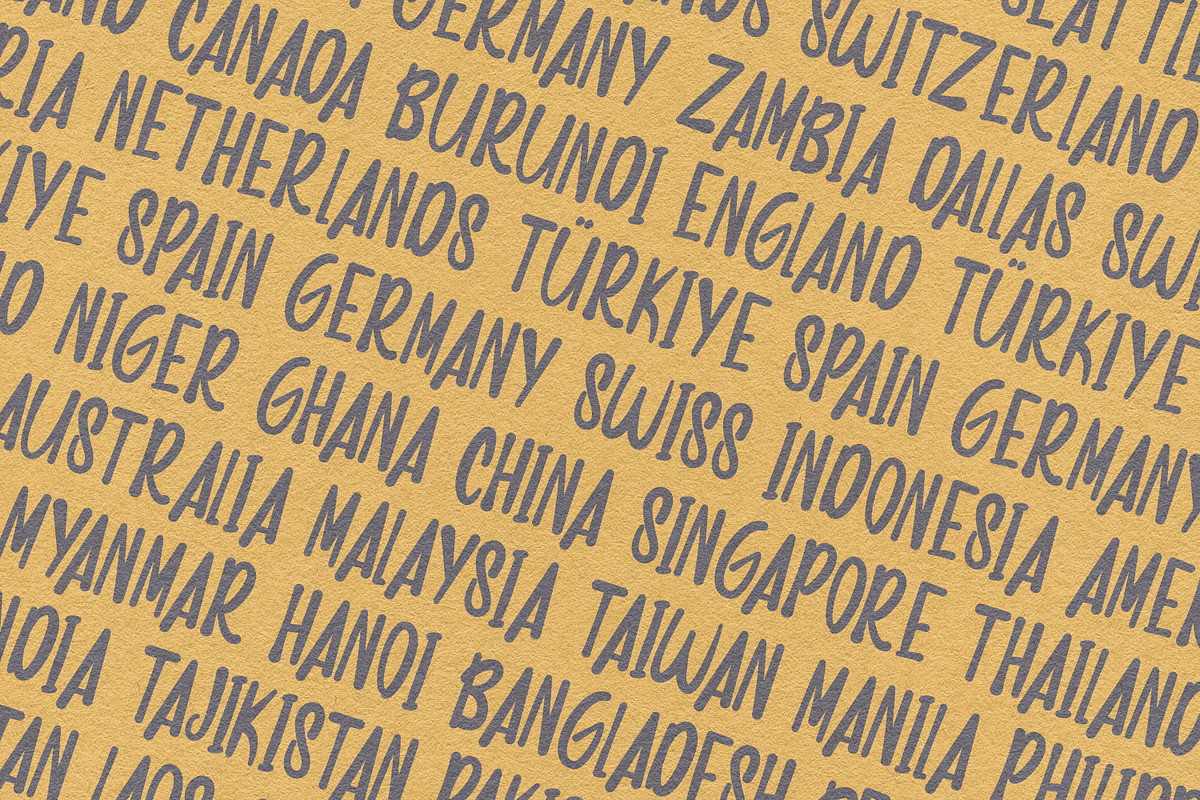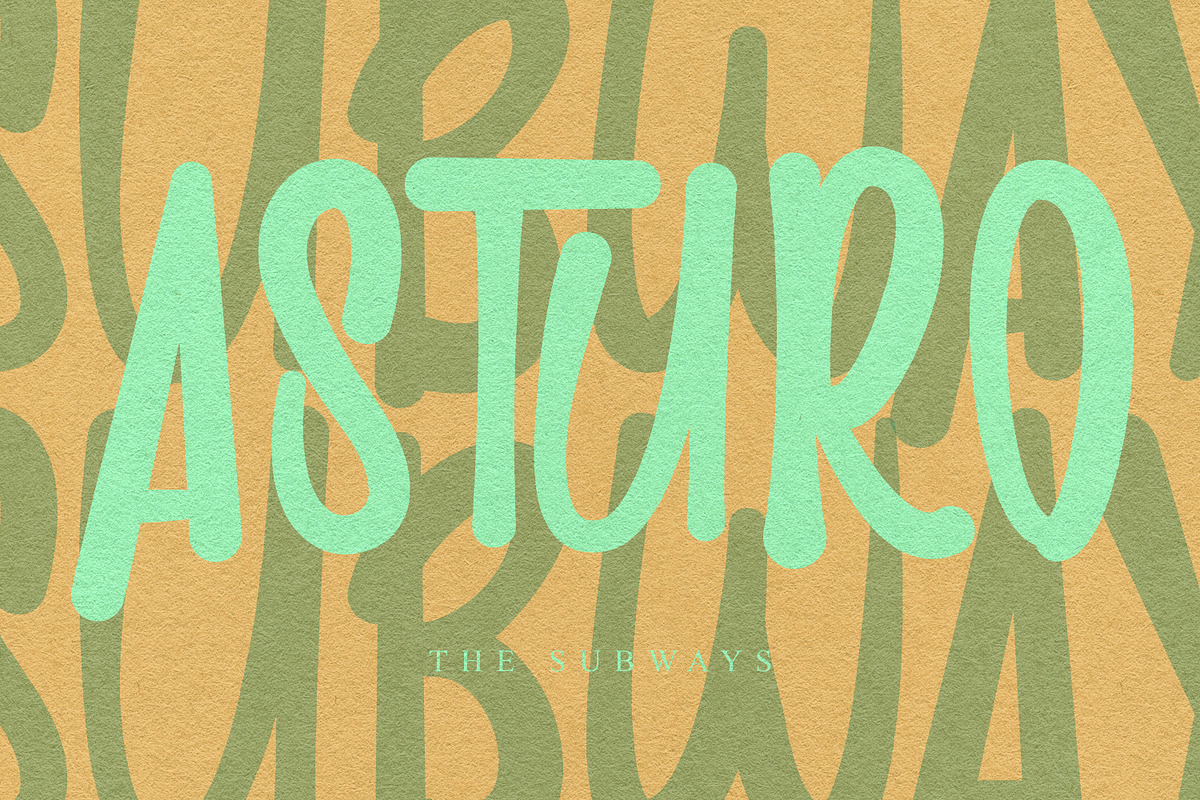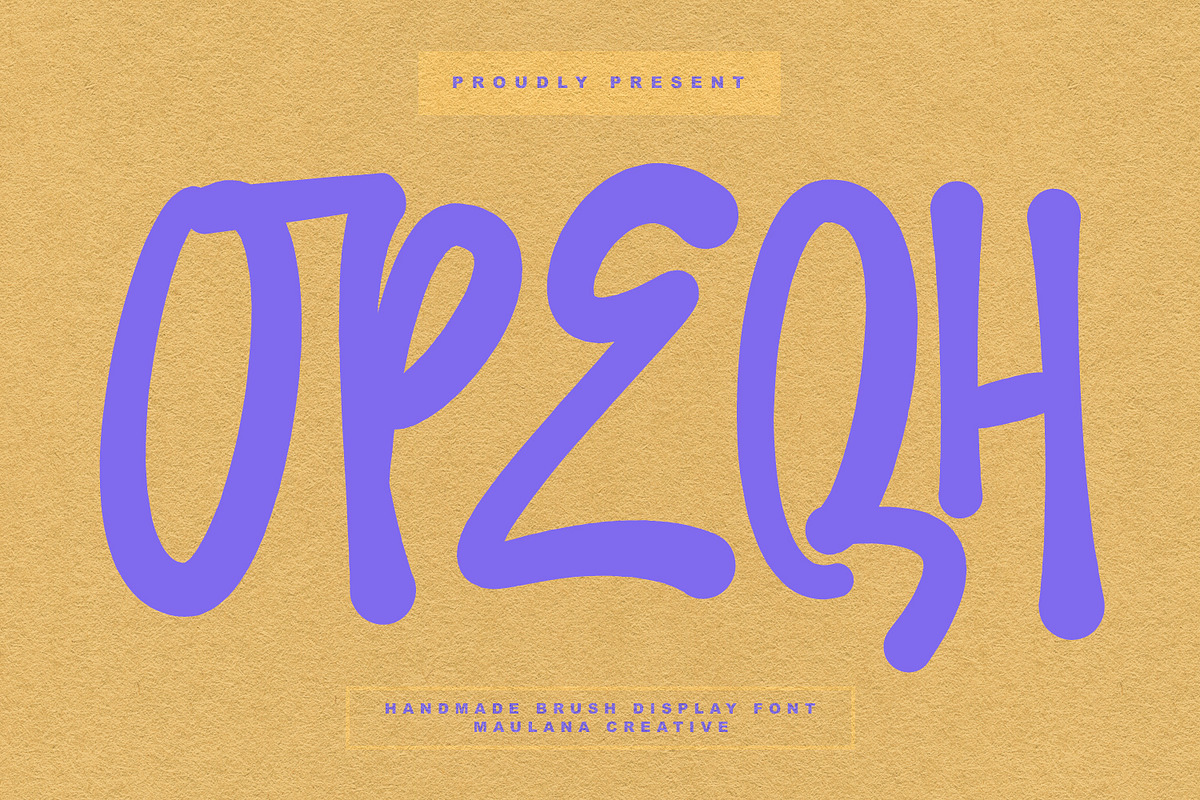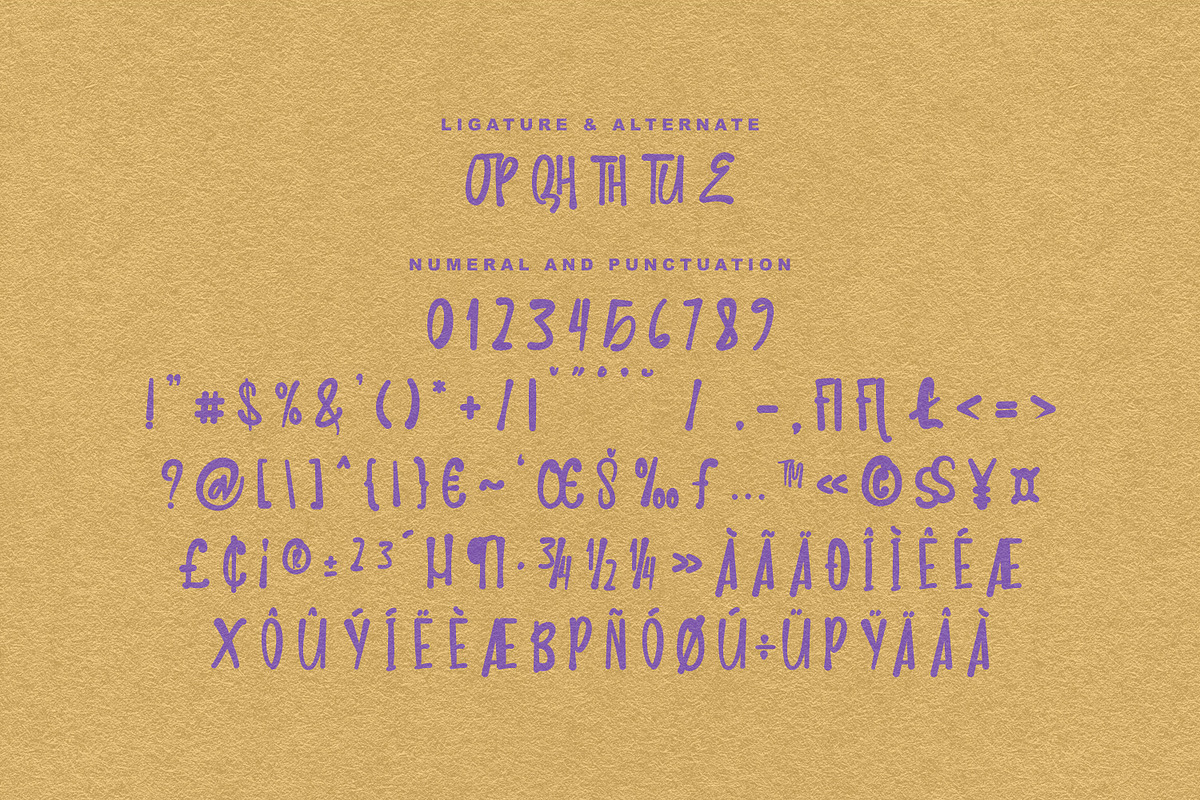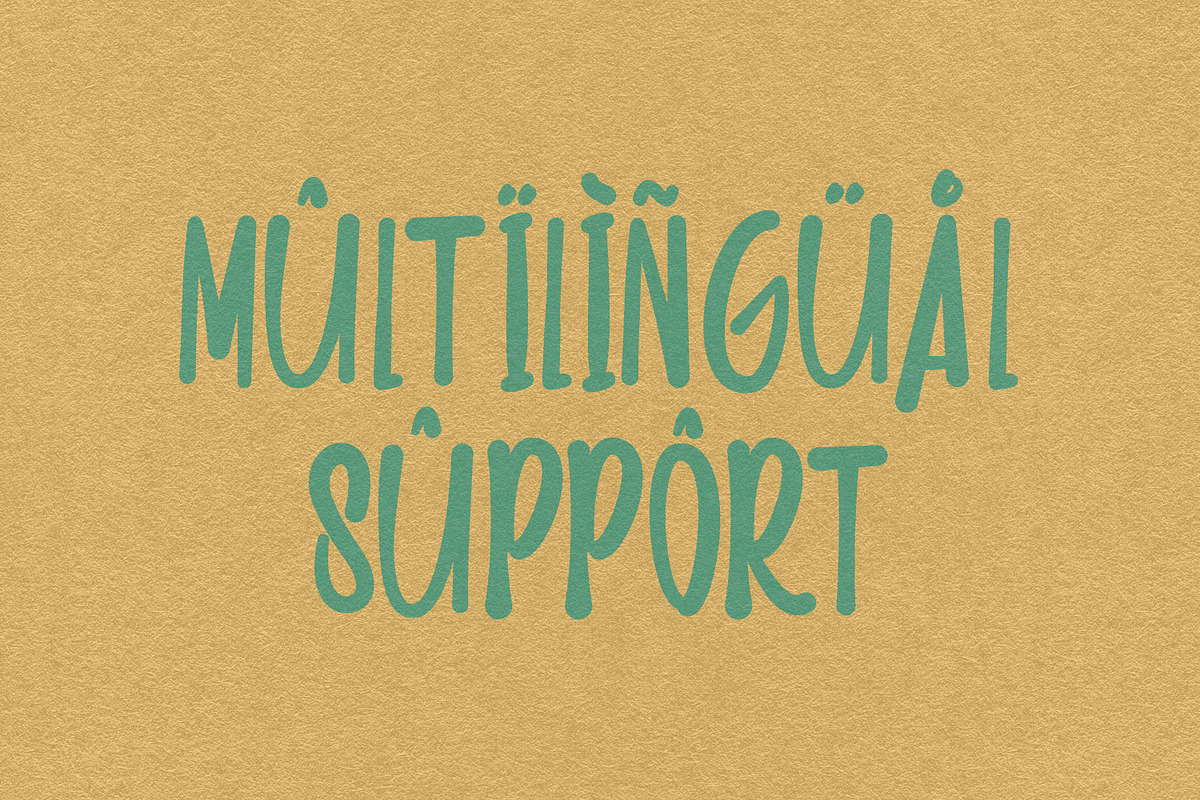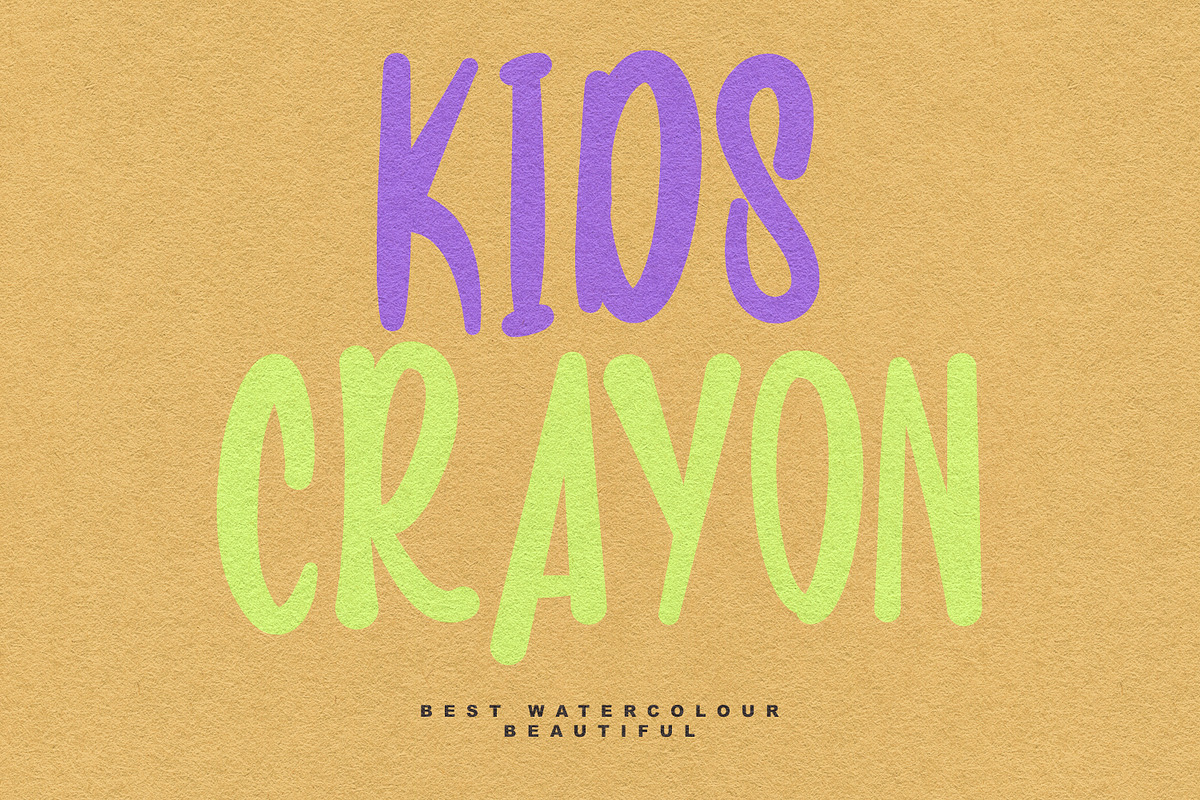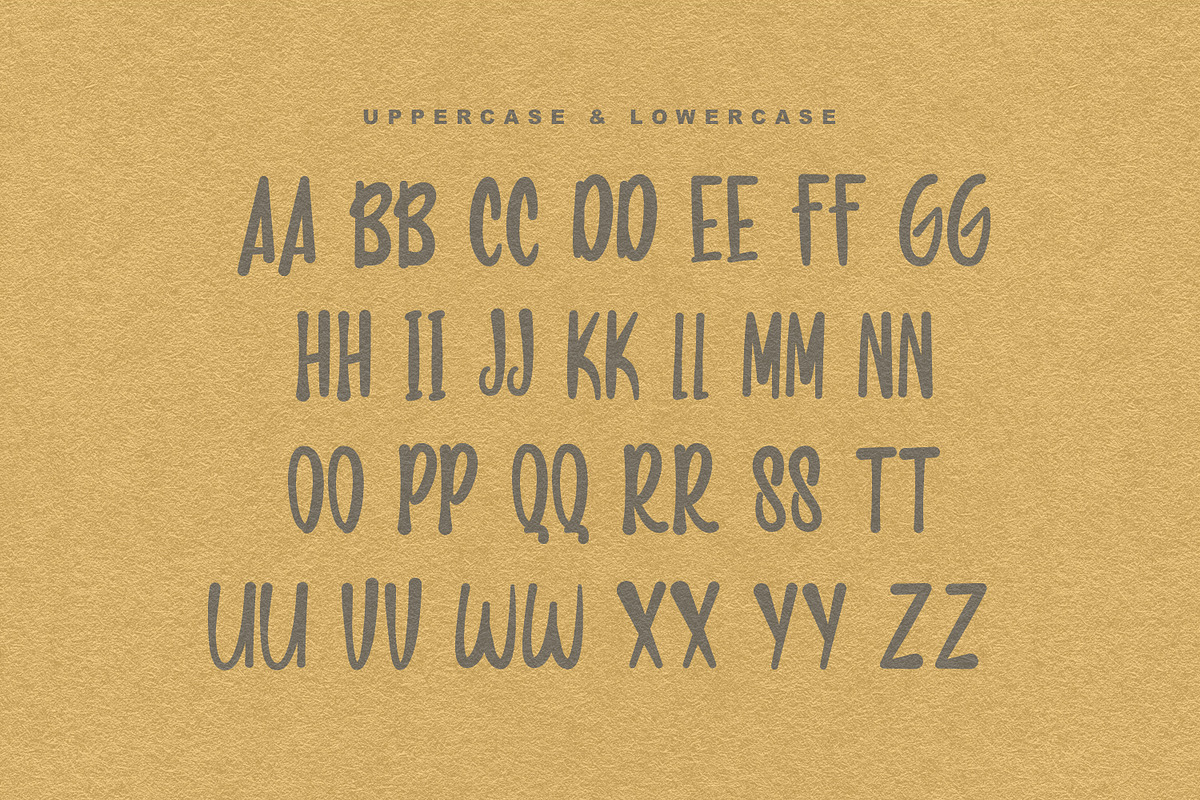
Opeqh Handmade Stylish Display Brush
Opeqh handmade brush display font, fun character with alternates and ligatures. To give you an extra creative work. Opeqh handmade brush display font support multilingual language.